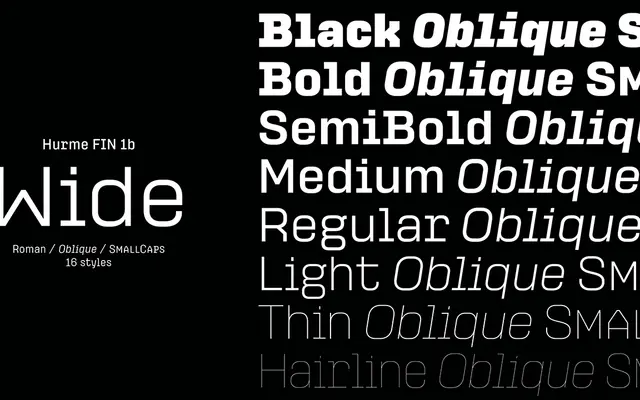
Hurme FIN 1b Wide
The Wide width variant of Hurme FIN 1b, a monolinear grotesque with angular, monospace-inflected characters across eight weights and matching obliques.
Part of the expansive Hurme FIN system, the 1b Wide variant distinguishes itself from the companion 1a family through angular, monospace-inspired letterforms and slab-serif details, making it a midpoint between the FIN Mono and FIN 1a grotesque subfamilies. Eight weights run from Hairline to Black, each with an optically adjusted oblique, giving 16 styles in this width alone. The full FIN family spans nine widths and 144 styles, with purchasers of 1b receiving corresponding 1a weights at no extra cost.
A simplified monolinear sans-serif with horizontal stroke terminals and angular, monospace-inspired characters; positioned as a transition between a grotesque and a monospaced design, placing it firmly in the grotesque sans-serif category.